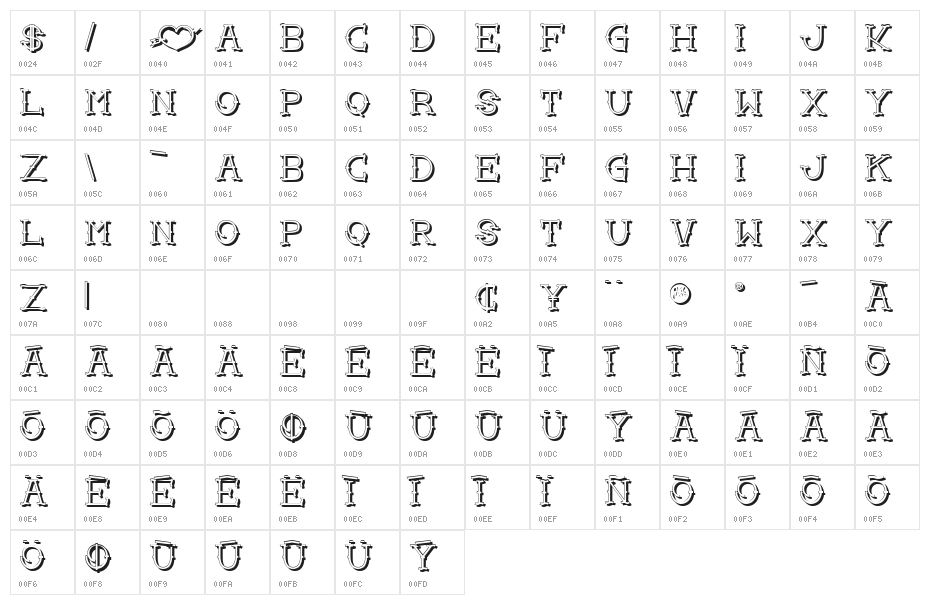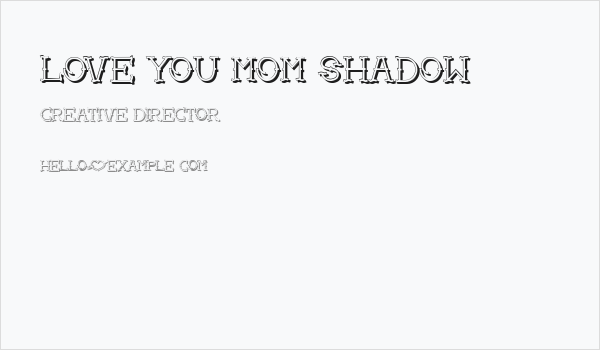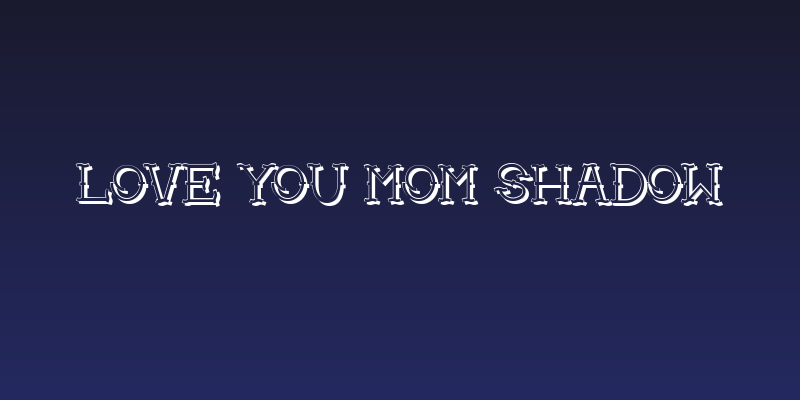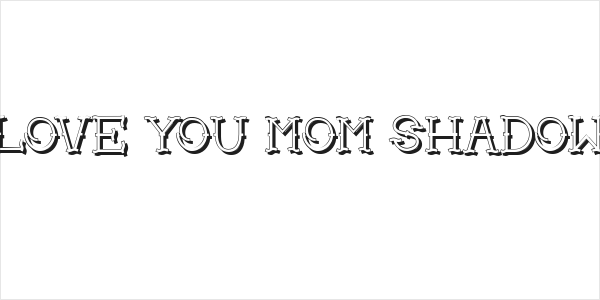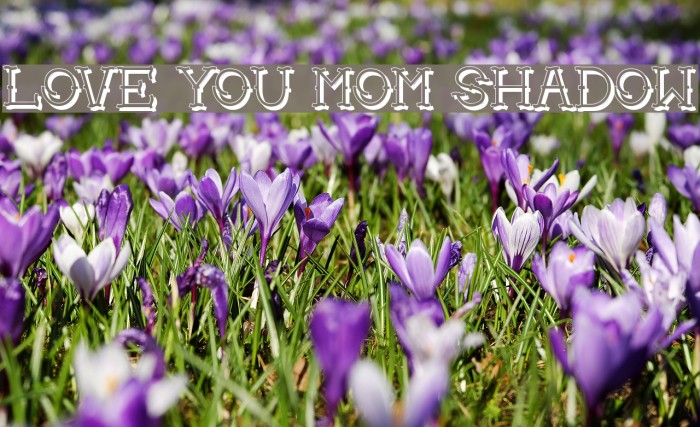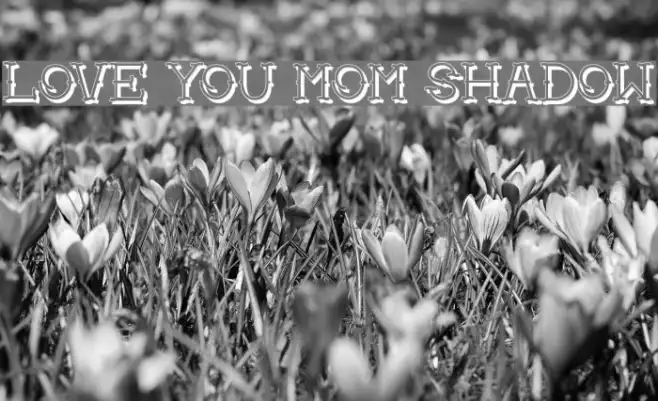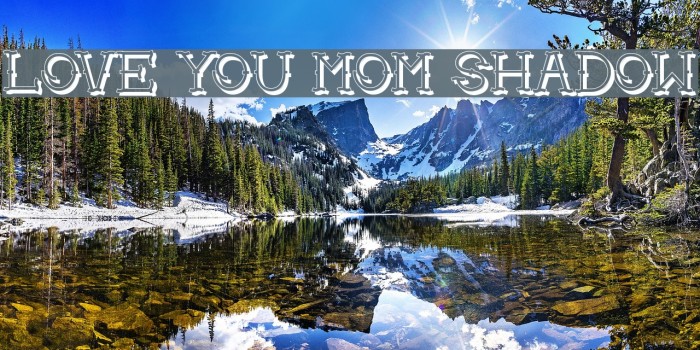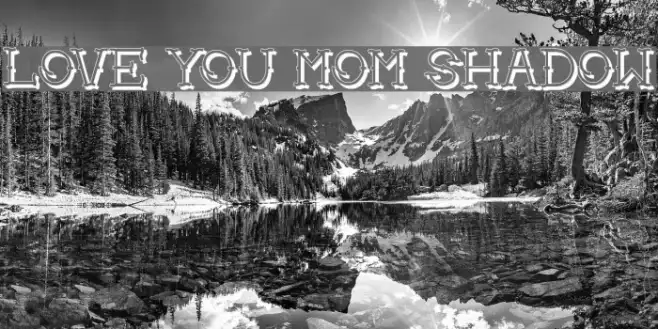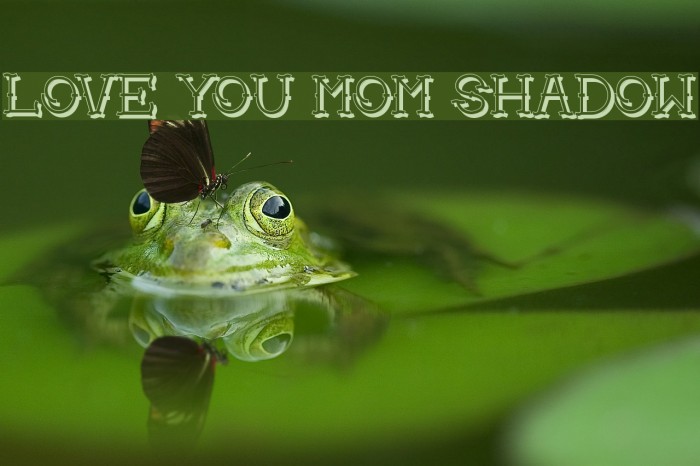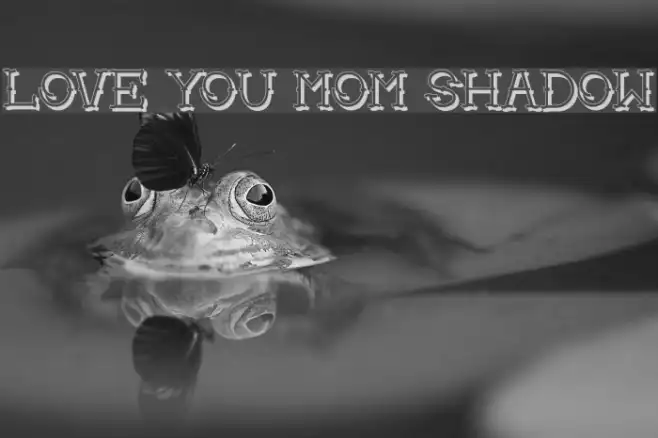
Love you mom Shadow Font
| Estilo general | Vintage |
| Caso de uso | Headlines, Logos, Posters, Signage |
| Proyectos propuestos | This font is perfect for projects that require a vintage or retro feel, such as posters, signage, branding, and headlines. Its bold and decorative nature makes it suitable for creating eye-catching titles and logos. |